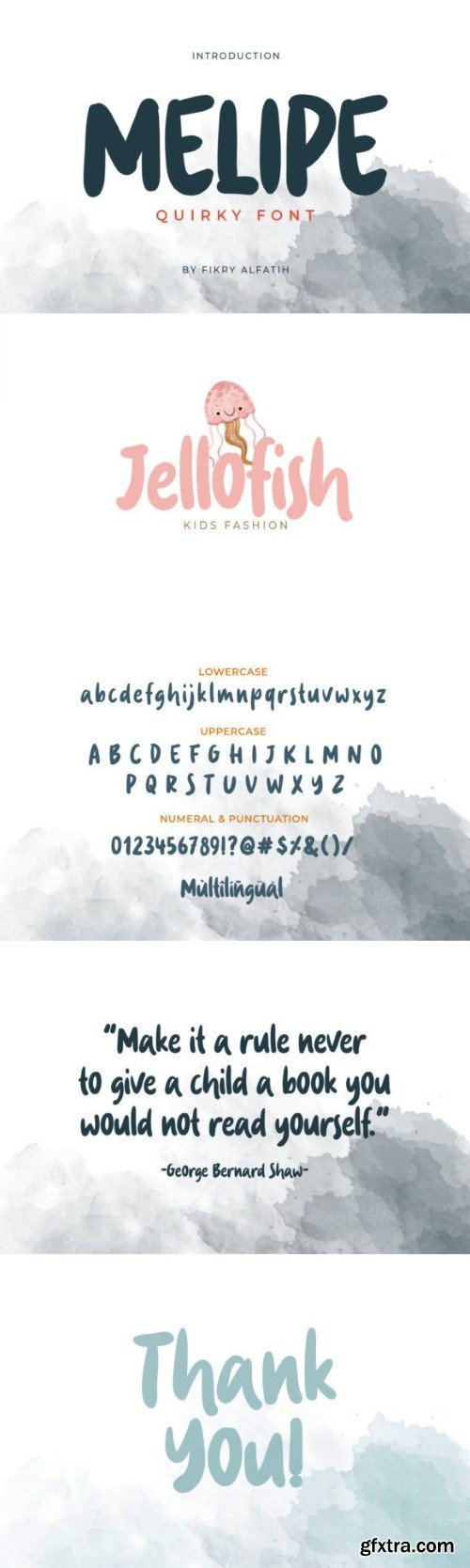
梅莉佩字体
Melipe is a playful and stylish display font that adds a delightful and whimsical touch to your designs. With its unique letterforms and charming character, whether you’re creating children’s illustrations, packaging, or social media graphics, Melipe brings personality and vibrancy to your designs, making them visually captivating and engaging.